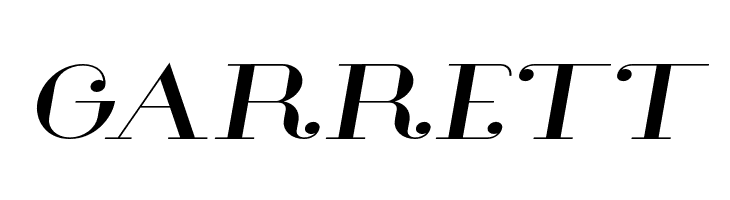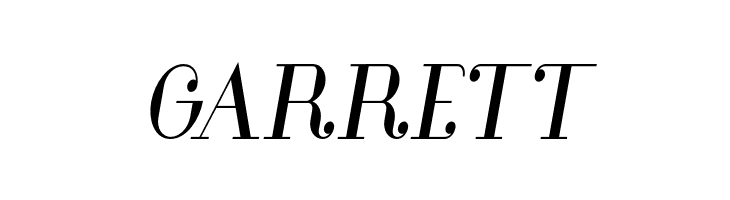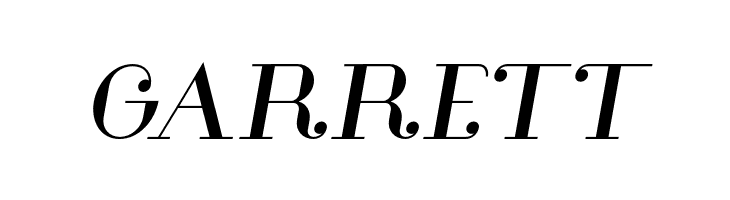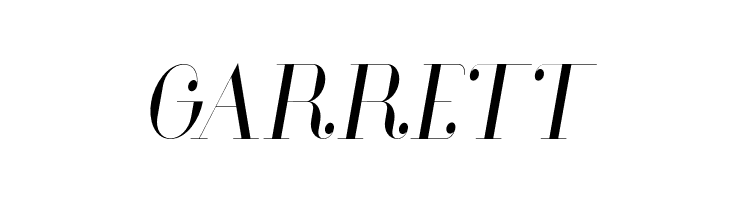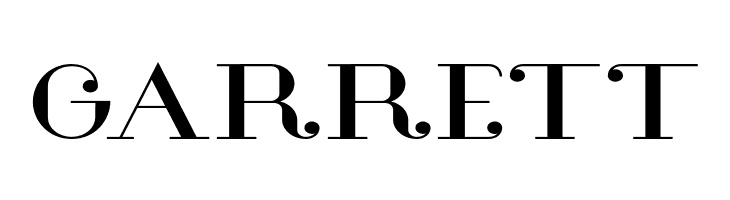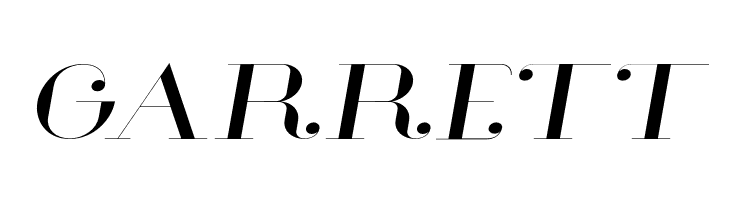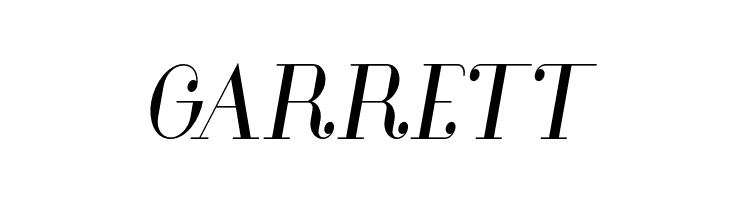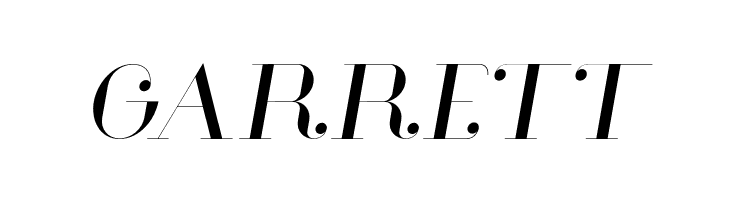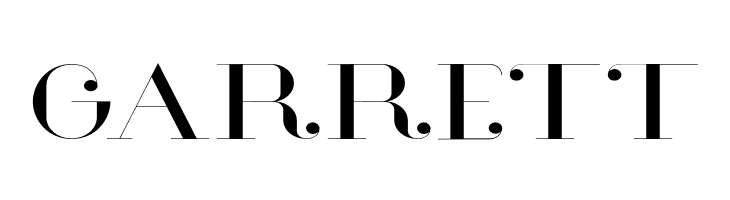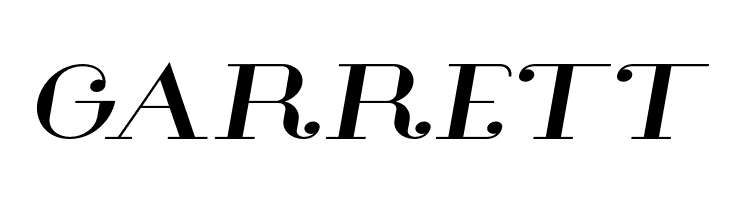
A sophisticated, condensed italic typeface with high contrast and sharp serifs.
An elegant, high-contrast extended italic font with a classic and sophisticated style.
A refined, high-contrast serif font with elongated, elegant letterforms.
An elegant, high-contrast, light, condensed italic typeface.
An elegant, high-contrast typeface with elongated, stylish characters.
An elegant, high-contrast, light italic font with extended width and classic serifs.
A refined, high-contrast light italic font with elegant, elongated characters.
A modern, high-contrast serif font with tall, condensed letterforms.
Elegant, modern, and italic with high contrast and condensed form.
A high-contrast, elegant serif font with a modern yet classic appeal.
An elegant, high-contrast italic typeface with medium weight and extended width.
An elegant, high-contrast italic typeface with medium weight and refined style.
A high-contrast, elegant font with dramatic flourishes and refined style.
A high-contrast, elegant serif font with modern flourishes and stylish details.